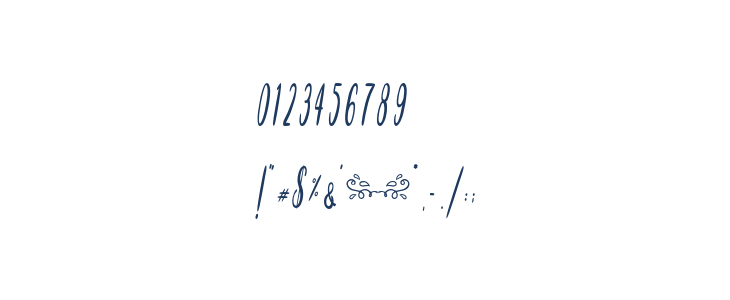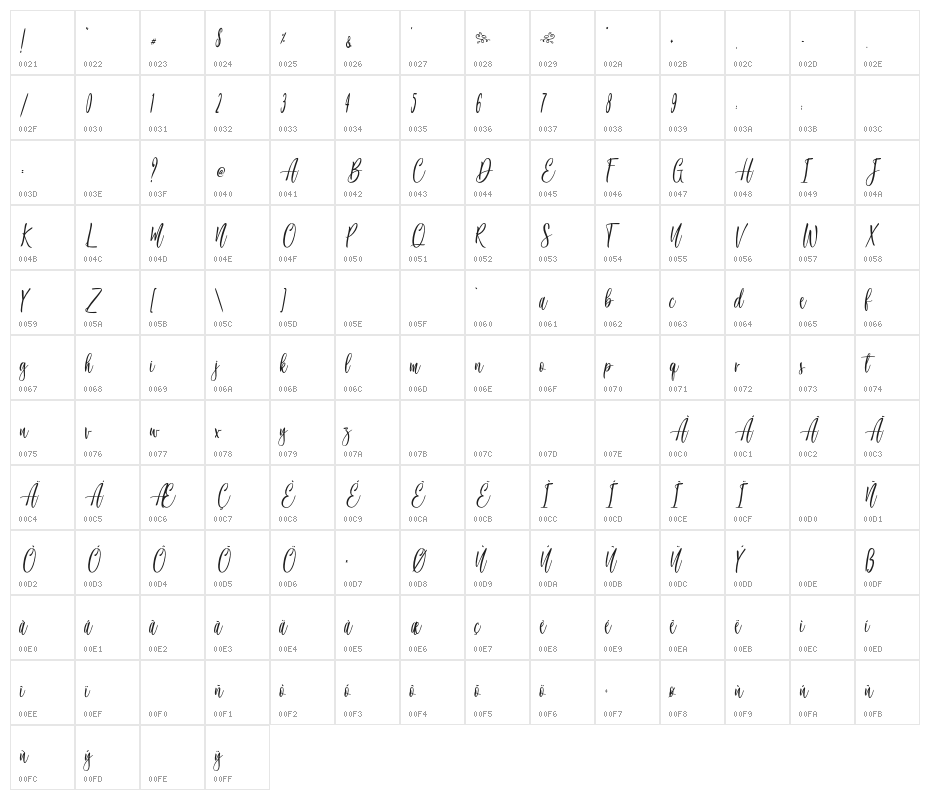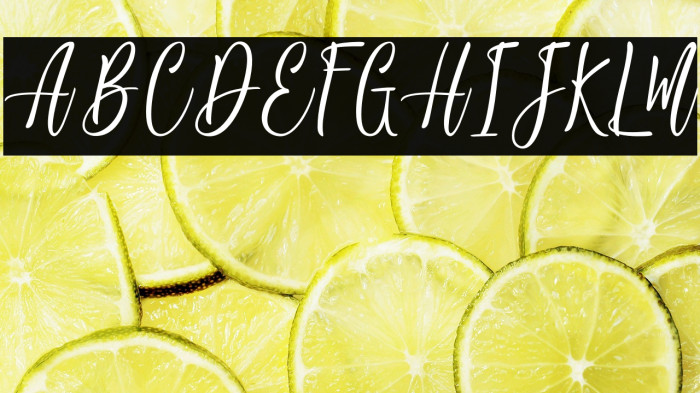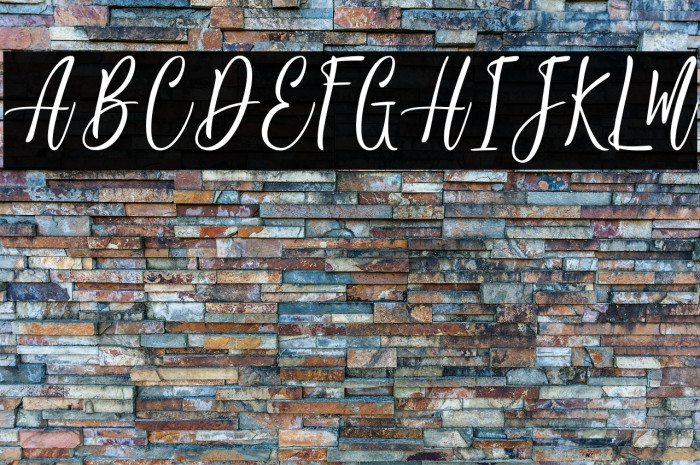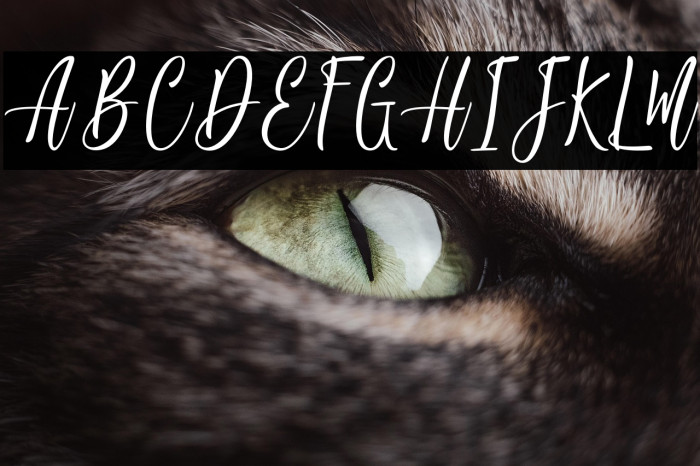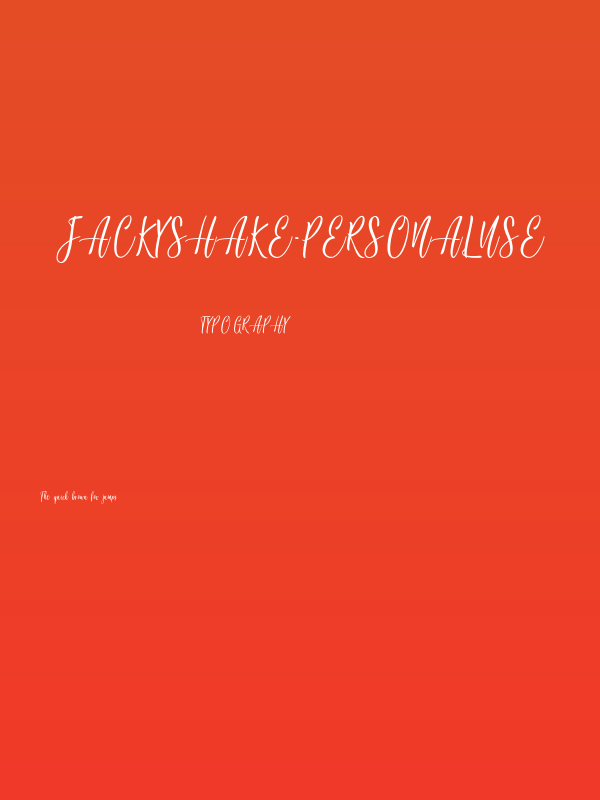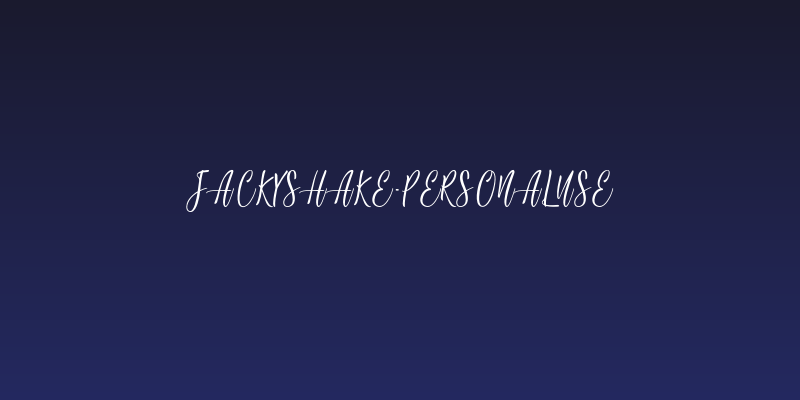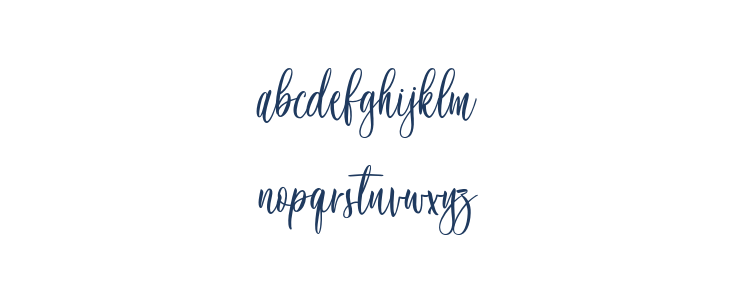
JackyShake-PersonalUse Font
JackyShake-PersonalUse Description
This font exudes a playful and elegant handwritten style, characterized by its fluid and dynamic strokes. The uppercase letters are tall and slightly slanted, giving a sense of movement and grace. The lowercase letters maintain a consistent flow, complementing the uppercase with their rounded and connected forms. Numbers are clear and legible, while special characters add a whimsical touch with their decorative elements. The overall appearance is both stylish and approachable, making it suitable for a variety of creative applications.
| Use Case | Logos, Invitations, Social Media |
| Proposed Projects | Ideal for wedding invitations, greeting cards, branding, and social media graphics. |